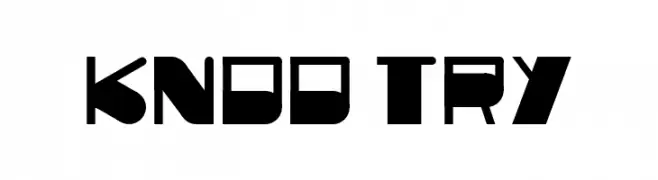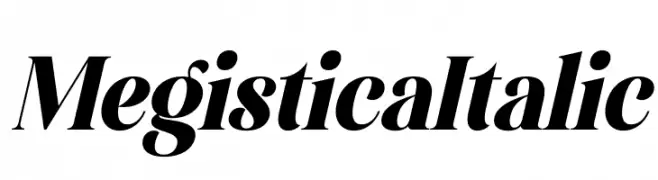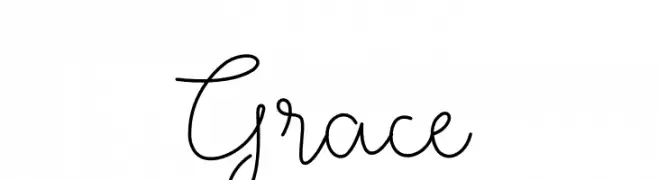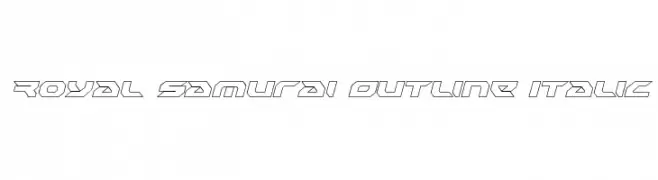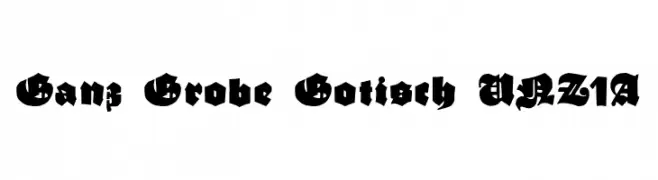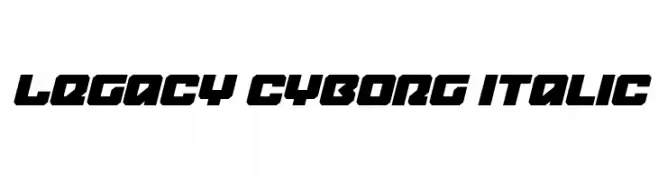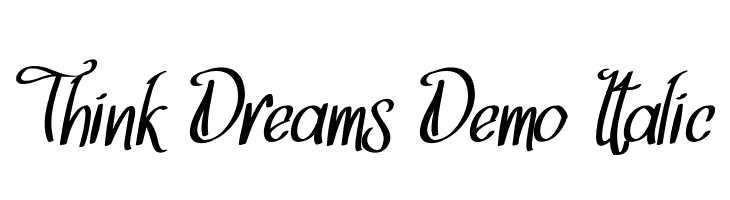
A bold, futuristic font with geometric shapes and sharp angles.
An elegant italic font with bold strokes and dynamic slant.
A decorative dingbat font with detailed sea and beach illustrations.
An elegant italic font with a modern, fluid style.
A graceful, cursive script font with elegant, flowing lines.
A bold, geometric outline font with a futuristic and angular design, featuring an italic slant.
An elegant and decorative script font with flowing, cursive letterforms.
A bold, geometric stencil-style font with clean lines and distinct gaps.
A bold, dramatic Blackletter-style font with intricate, angular letterforms.
A bold, shadowed font with a geometric, three-dimensional style.